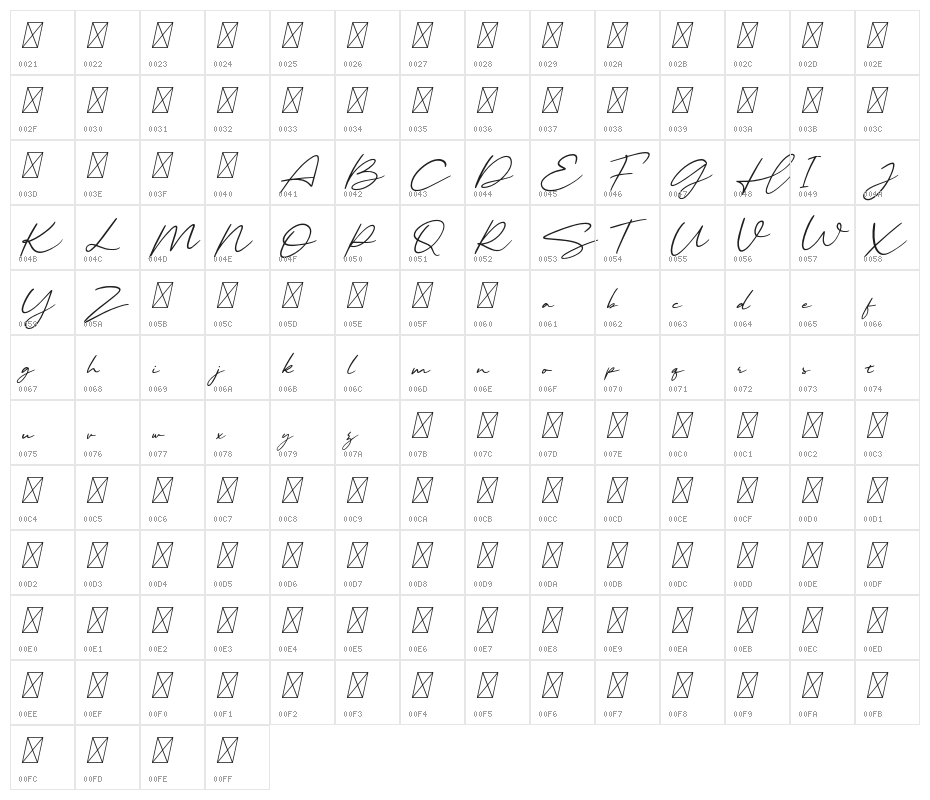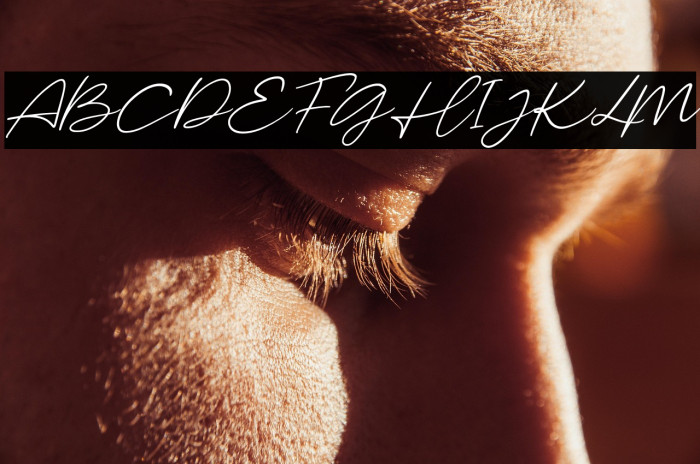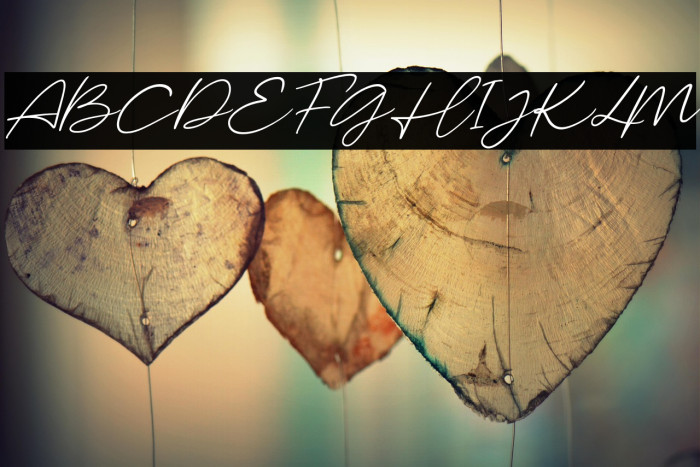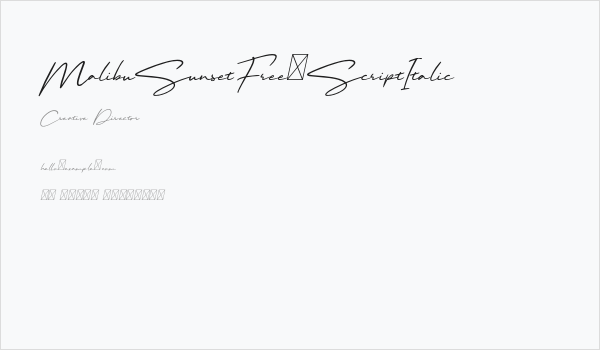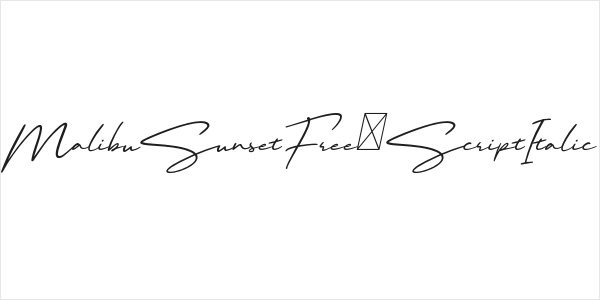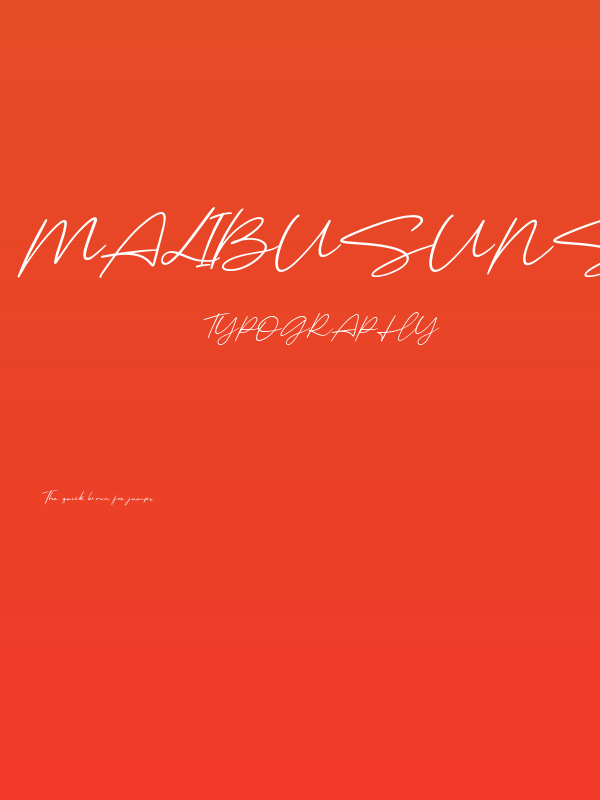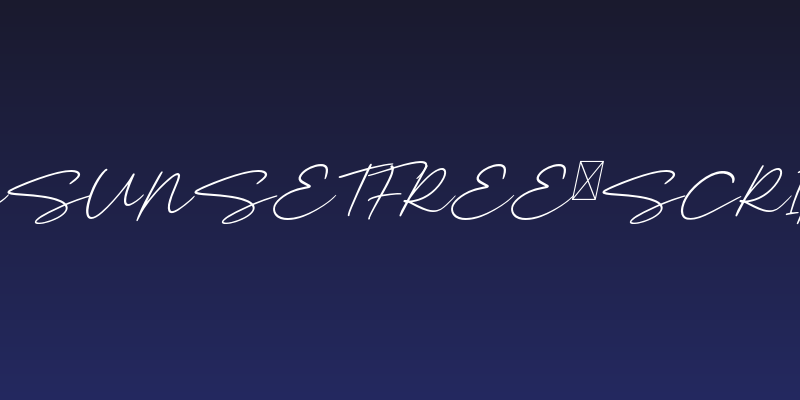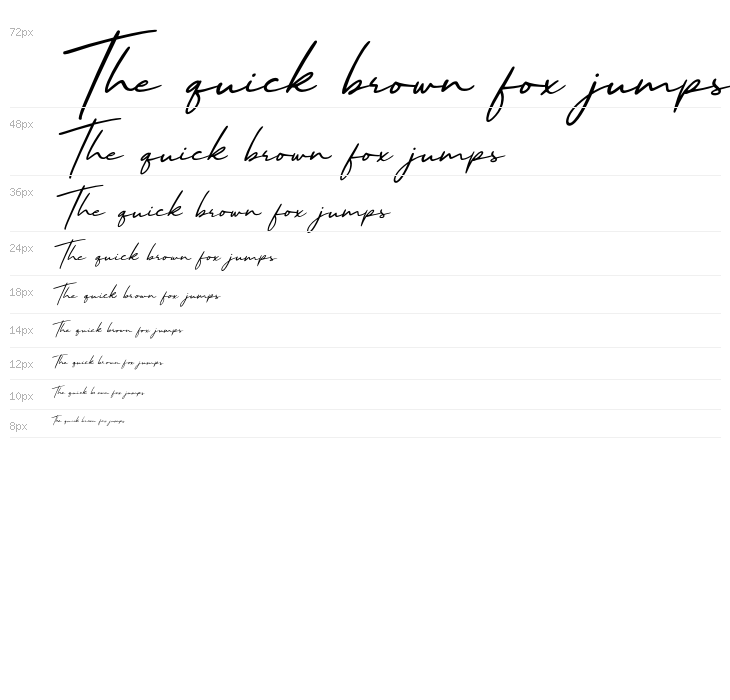
MalibuSunsetFree-ScriptItalic Font
MalibuSunsetFree-ScriptItalic Description
This font exudes a casual and elegant handwritten style, characterized by its fluid and connected letterforms. The uppercase letters are tall and slightly slanted, giving a sense of movement and grace. The lowercase letters maintain a consistent flow, enhancing the script's natural and personal touch. The overall appearance is both sophisticated and approachable, making it suitable for a variety of creative applications. The font's design is clean, with smooth curves and a balanced weight that ensures readability while maintaining its artistic flair.
| Proposed Projects | Ideal for wedding invitations, personal branding, greeting cards, and social media graphics. |